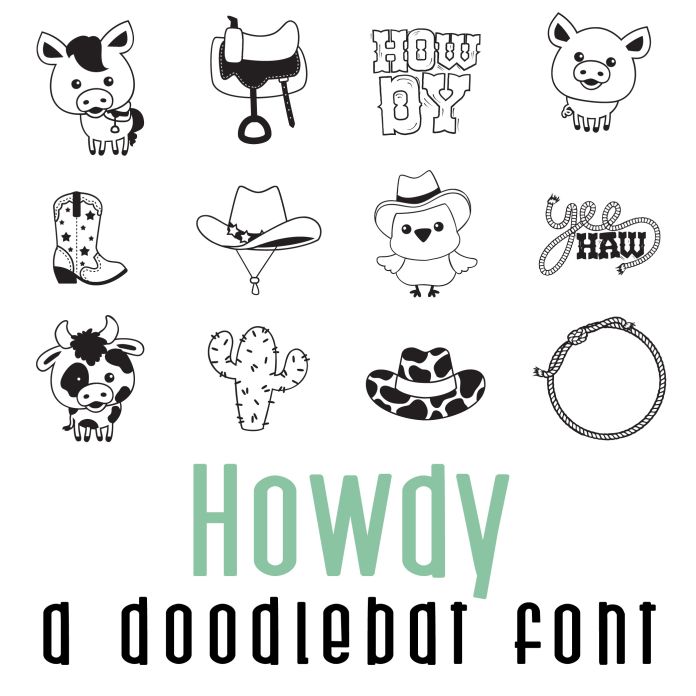
Howdy Doodlebat Font is a whimsical and playful design featuring 26 various farm animal and western imagery. The font is perfect for adding a fun and charming touch to any project related to farming, crafting, or animals. Its unique style and detailed illustrations make it a versatile choice for a wide range of creative endeavor, perfect for parties, gifts, classrooms, planner stickers, cardmaking and more!